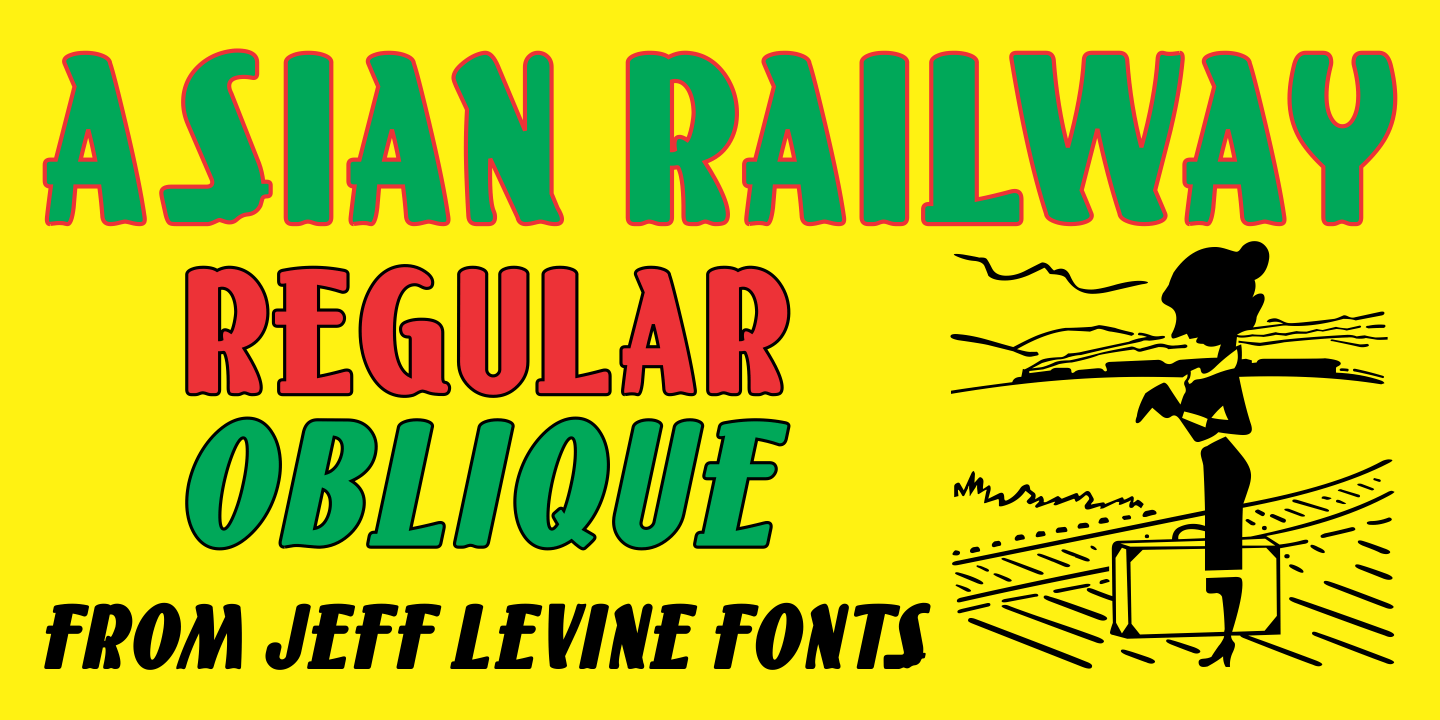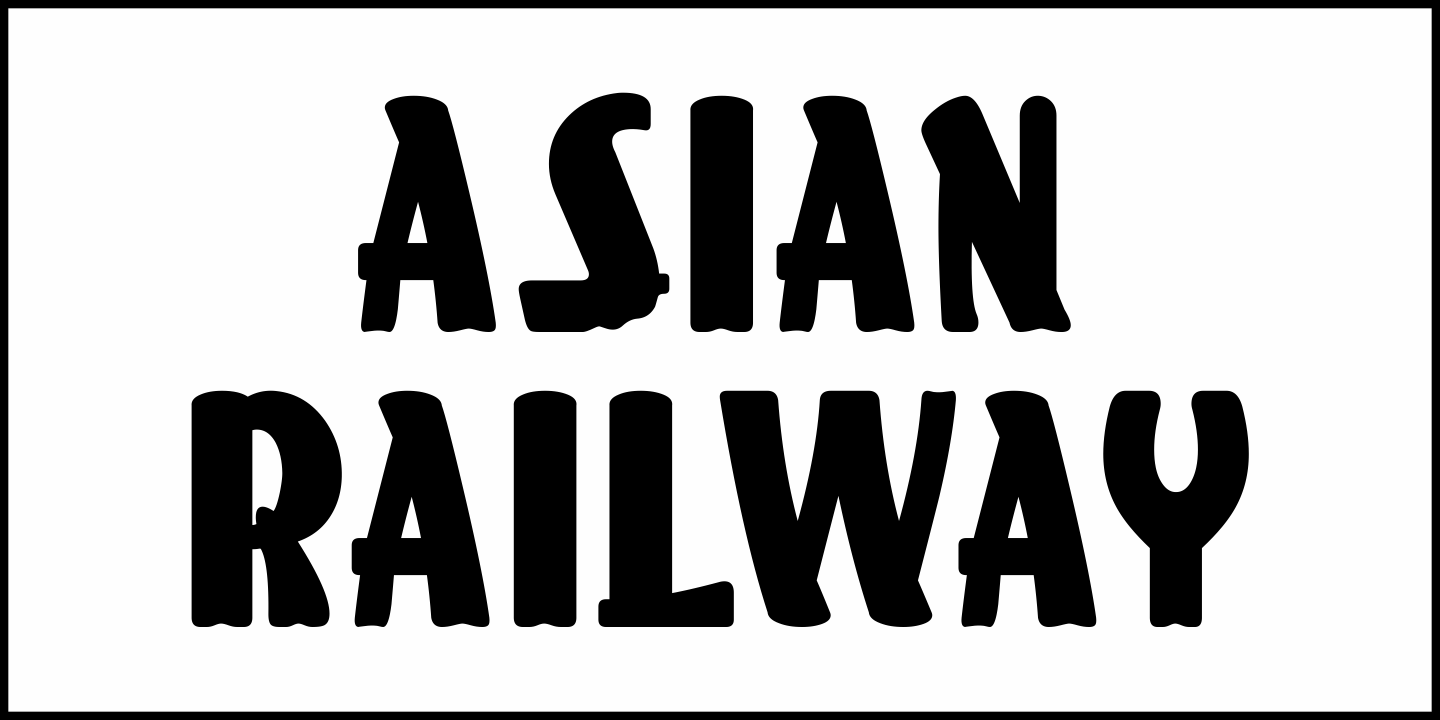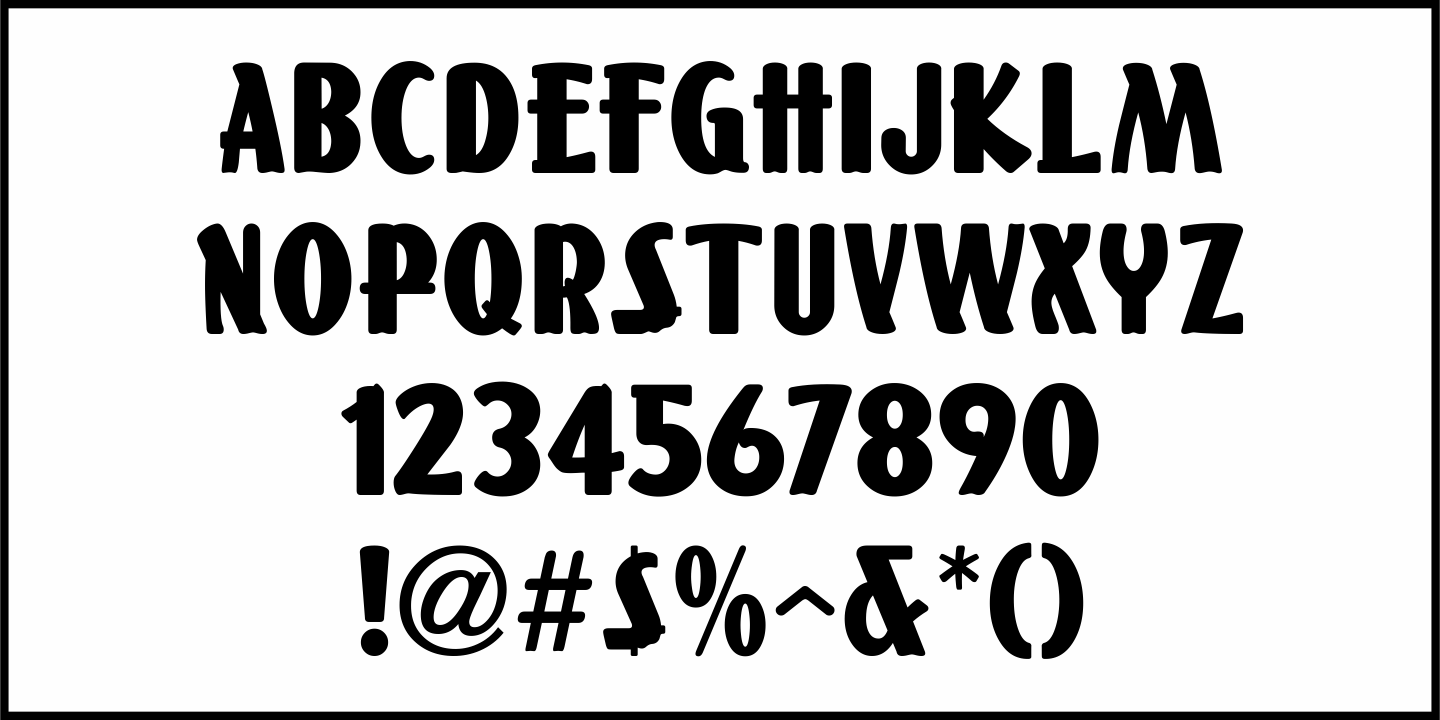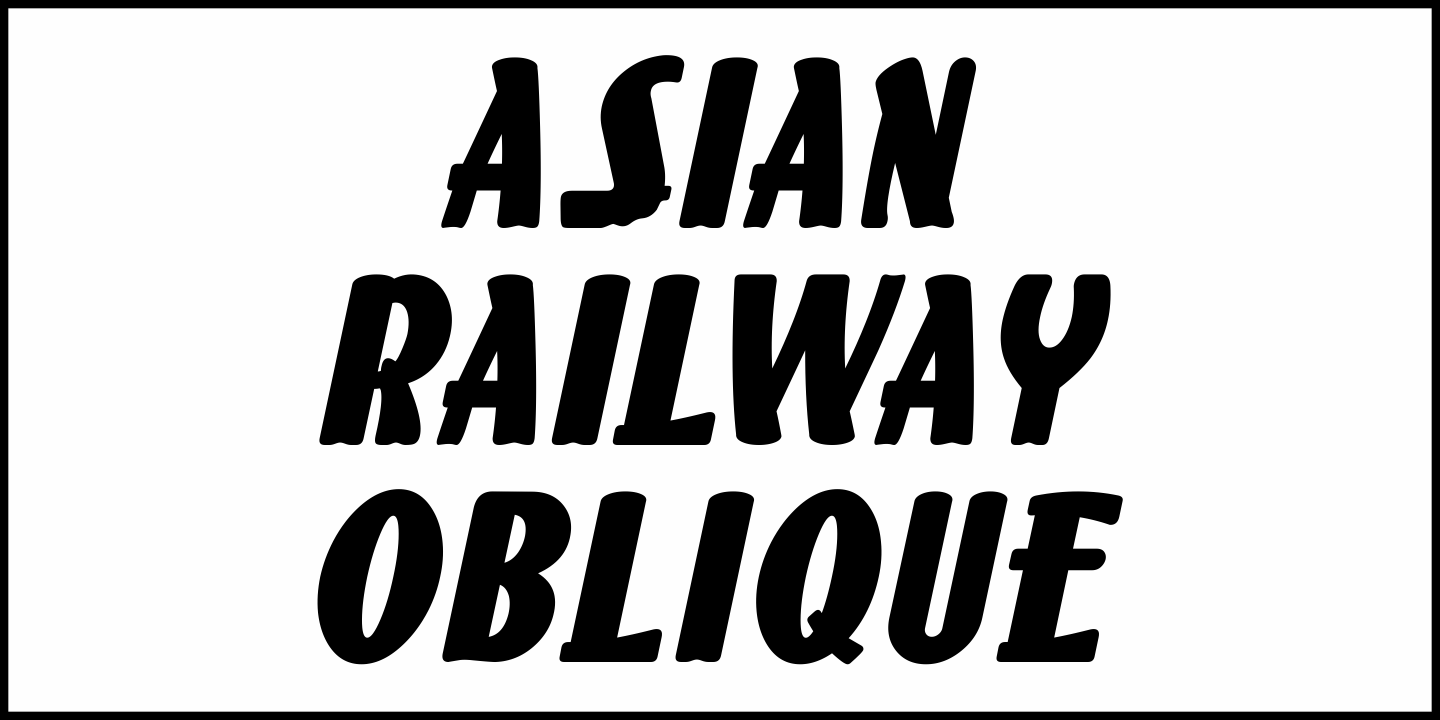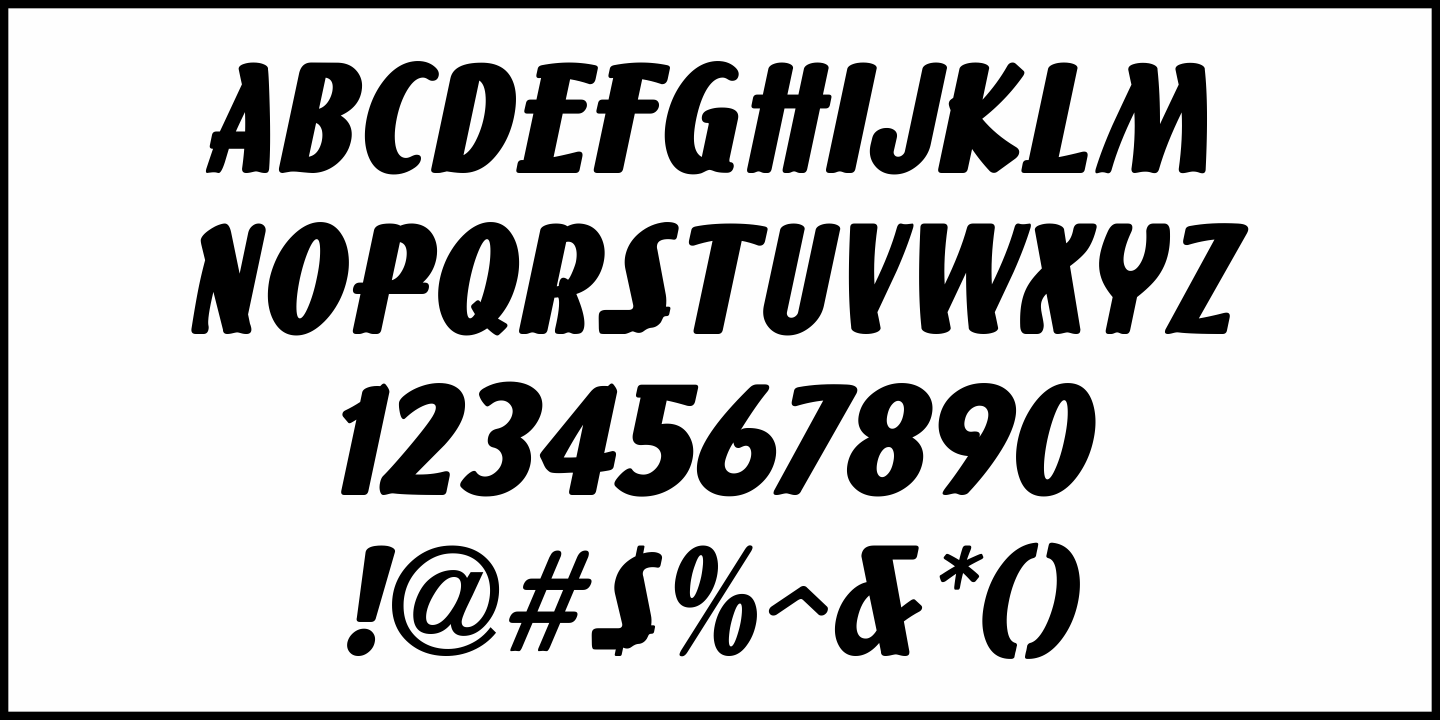
Asian Railway
A poster for the 1932 film 'Shanghai Express” starring Marlene Dietrich has the films name is a semi-Asian lettering style.
This bold poster font is now available as Asian Railway JNL in both regular and oblique versions.